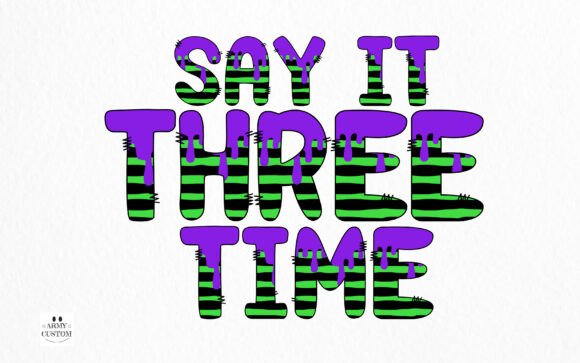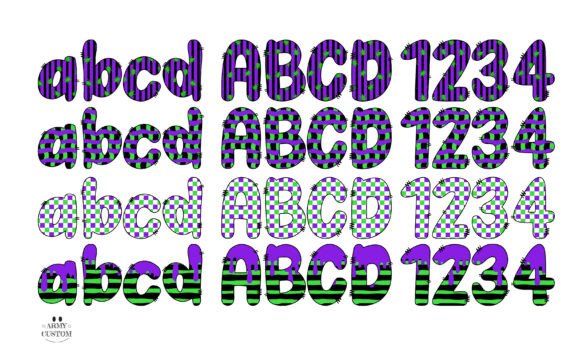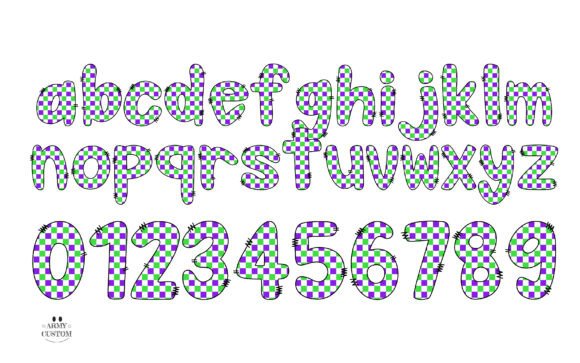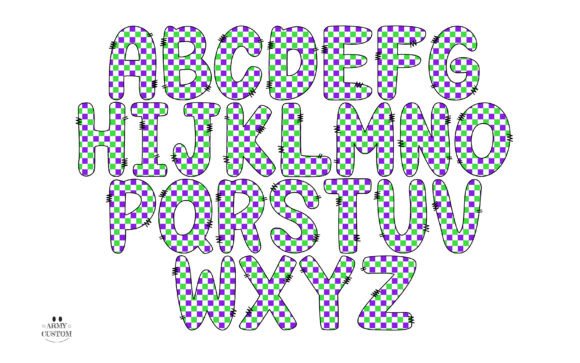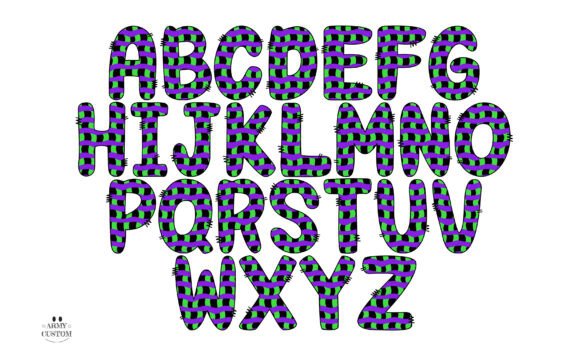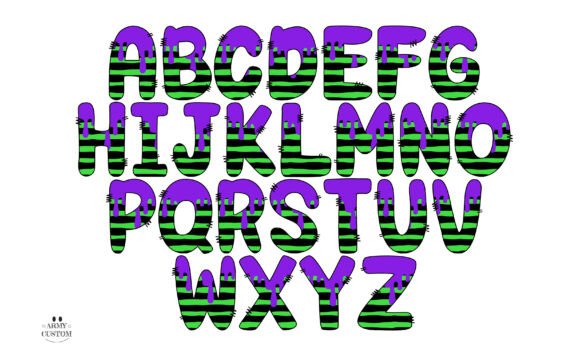
Unleash the Magic of Beetle Army Bundle Font: A Halloween-Themed Design Delight
Are you ready to add a dash of spellbinding magic to your creative journey? Look no further than the Beetle Army Bundle Font, a distinct Halloween Doodle Font Color that is flawlessly sculpted to empower your creativity. This vibrant font is perfectly suited to breathe life into arts and crafts projects, making them captivating works of art that are sure to enchant and delight.
What is Beetle Army Bundle Font?
The Beetle Army Bundle Font is a unique and versatile font collection that is designed to infuse a magnetic charm into your artistic endeavors. At its core, it’s a Halloween-themed font that is carefully crafted to add a touch of whimsy and wonder to your designs. With its delightful and enchanting allure, this font is perfect for designers and crafters who want to create captivating works of art that stand out from the crowd.
Key Features of Beetle Army Bundle Font
• Distinct Halloween Doodle Font Color: The Beetle Army Bundle Font is a one-of-a-kind font that is specifically designed to capture the essence of Halloween. Its unique doodle style and color make it perfect for creating spooky and enchanting designs.
• Versatile and Unique Design: This font is carefully crafted to be versatile and uniquely designed, making it perfect for a wide range of creative projects, from arts and crafts to digital designs.
Benefits of Using Beetle Army Bundle Font
There are many benefits to using the Beetle Army Bundle Font in your creative projects. Here are a few:
• Adds a Touch of Whimsy and Wonder: The Beetle Army Bundle Font is designed to add a touch of whimsy and wonder to your designs. Its unique and enchanting allure makes it perfect for creating captivating works of art.
• Perfect for Halloween-Themed Designs: This font is specifically designed for Halloween-themed designs, making it perfect for creating spooky and enchanting designs that capture the essence of the holiday.
The Beetle Army Bundle Font is a unique and enchanting font collection that is perfect for designers and crafters who want to add a dash of spellbinding magic to their creative journey. With its distinct Halloween doodle font color, versatile and unique design, and compatibility with select design software, this font is sure to empower your creativity and make your designs stand out from the crowd. So why wait? Download the Beetle Army Bundle Font today and start creating captivating works of art that are sure to enchant and delight.